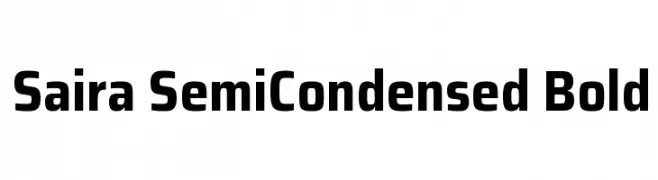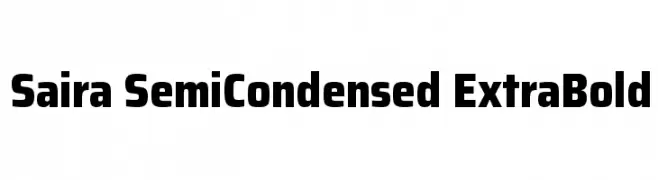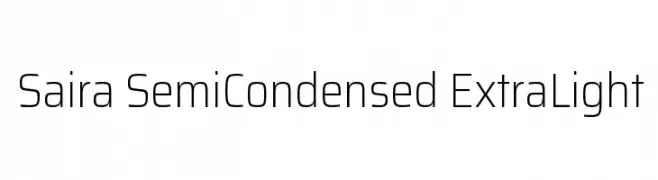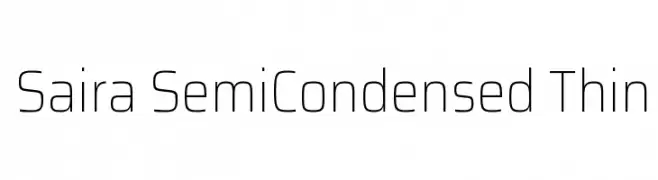
A clean, modern sans-serif font with a light weight and balanced structure.
A modern sans-serif font with rounded terminals and balanced proportions.
A modern, italic sans-serif font with a clean and approachable style.
A modern, semi-condensed font with clean, balanced letterforms.
A modern, semi-condensed font with an extra light weight and clean lines.
A clean, modern, semi-condensed font with consistent stroke thickness and balanced spacing.
A sleek, modern semi-condensed font with thin strokes and geometric shapes.
A bold, semi-condensed typeface perfect for impactful headlines.
A modern, semi-condensed font with a clean and professional appearance.
A bold, semi-condensed font with a modern and robust style.